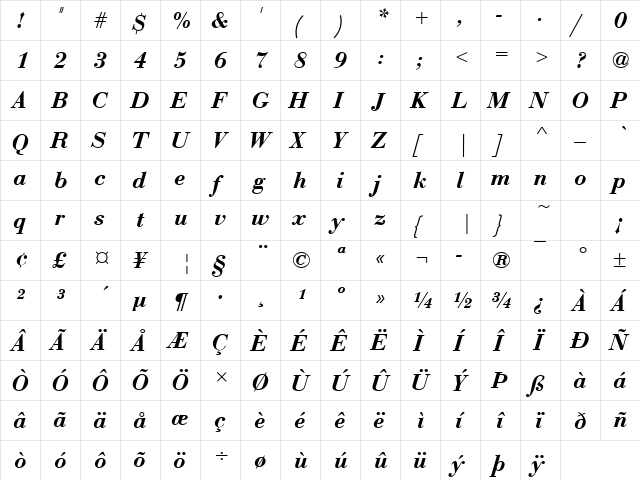
BodoniNo1URWTDemBol Italic
Design Context for BodoniNo1URWTDemBol Typeface
BodoniNo1URWTDemBol offers clean, dependable letterforms without strong stylistic allegiance, making it a practical choice for designers who need flexibility. Its italic angle brings a sense of urgency and motion to the letterforms.
Pro Tip: Use BodoniNo1URWTDemBol for emphasis, pull quotes, and subheadings where its slanted energy can add rhythm to the layout.